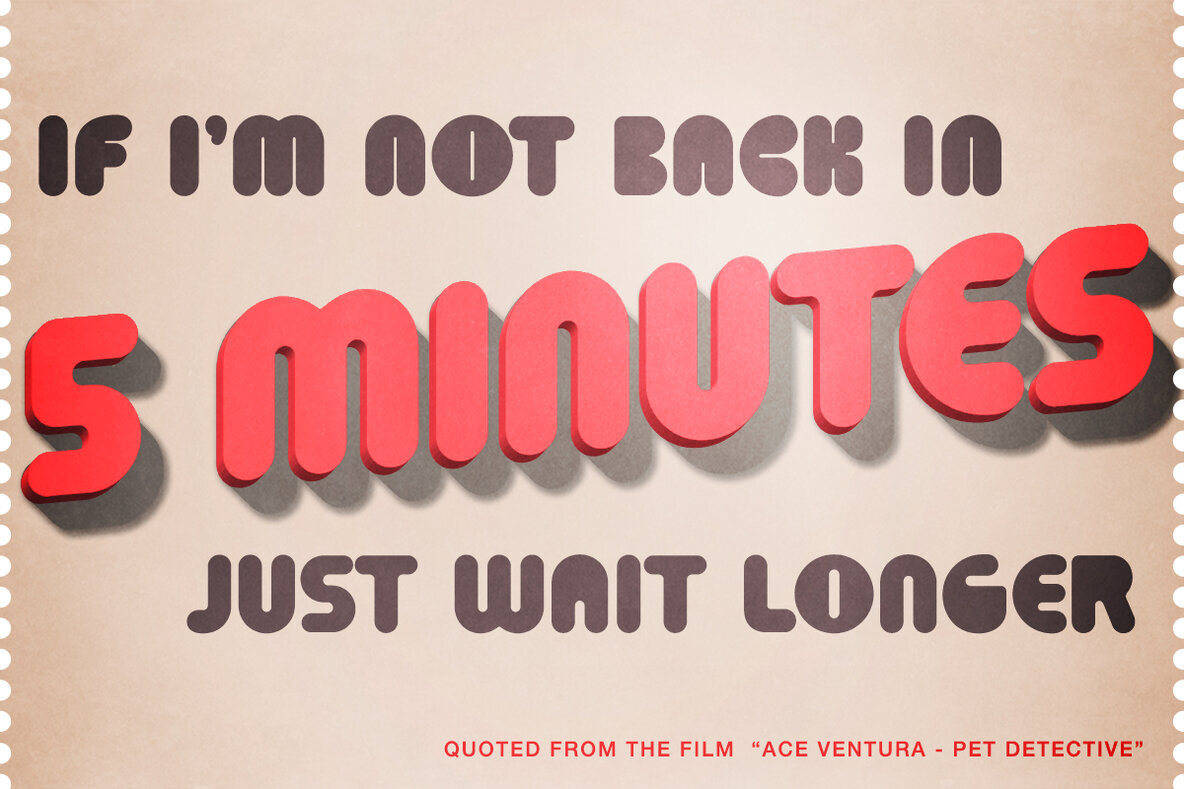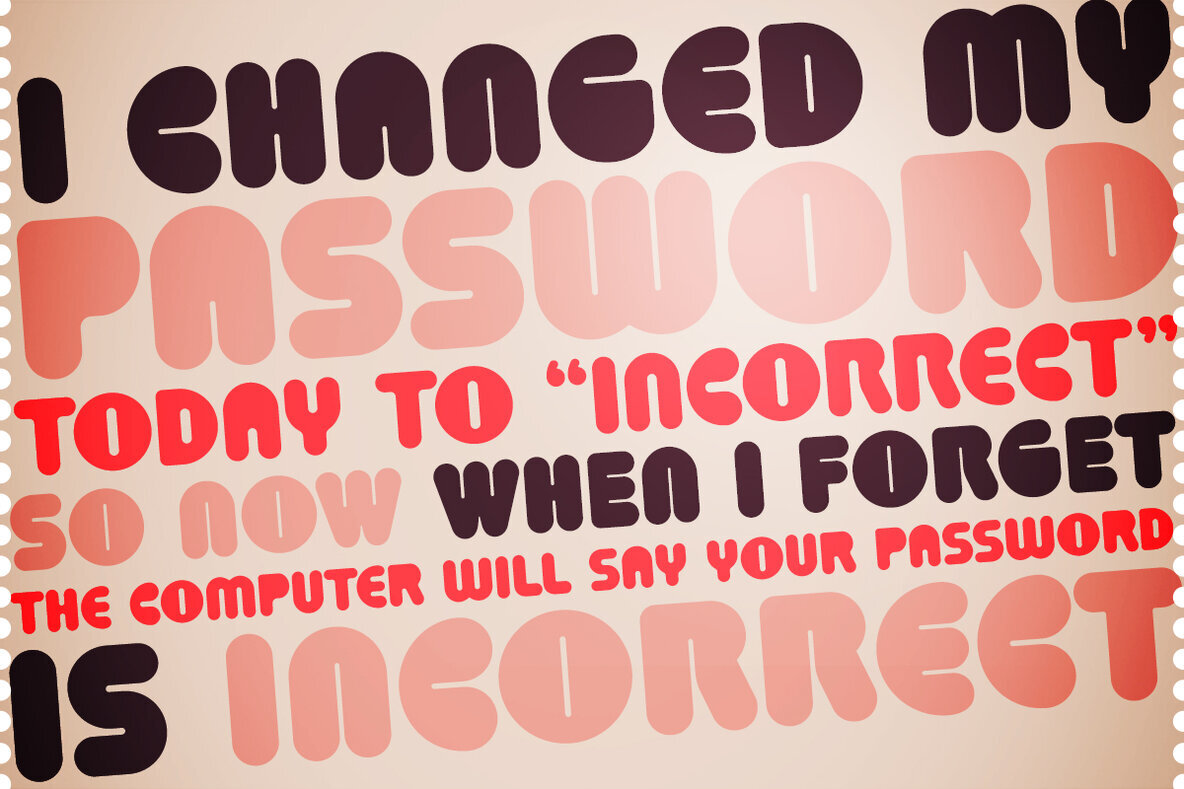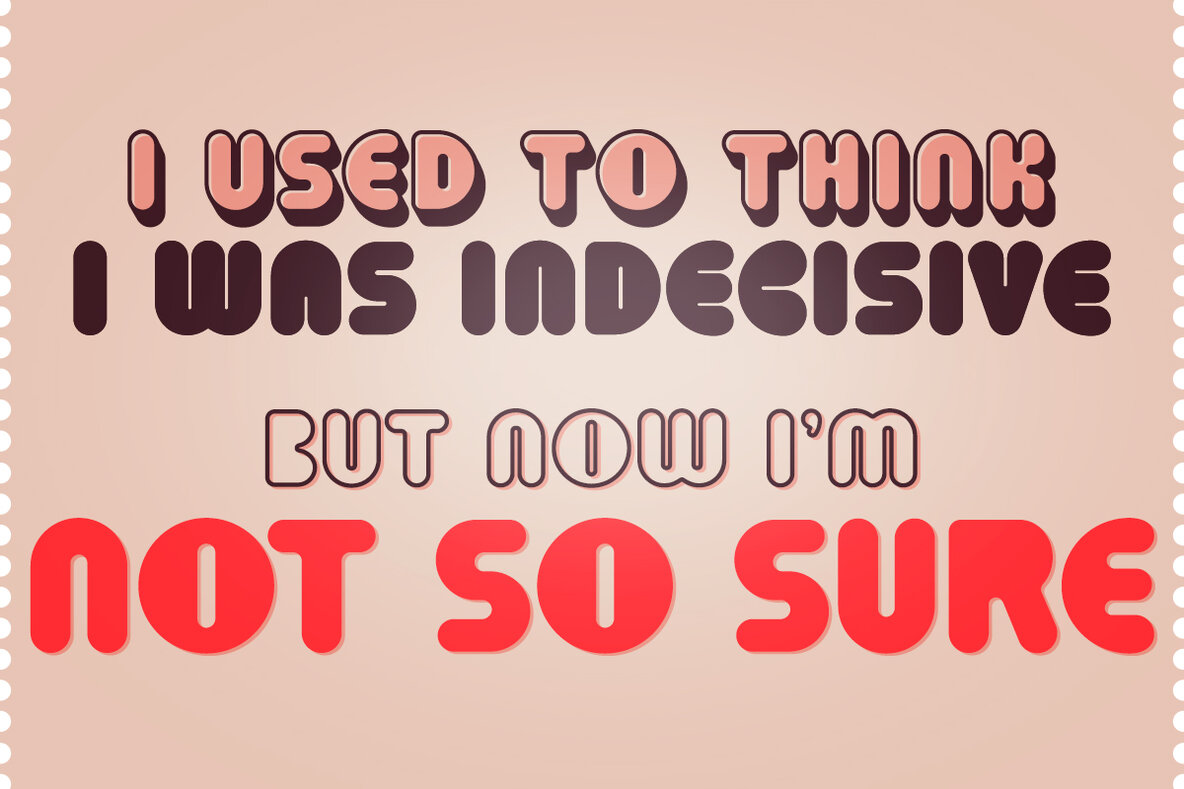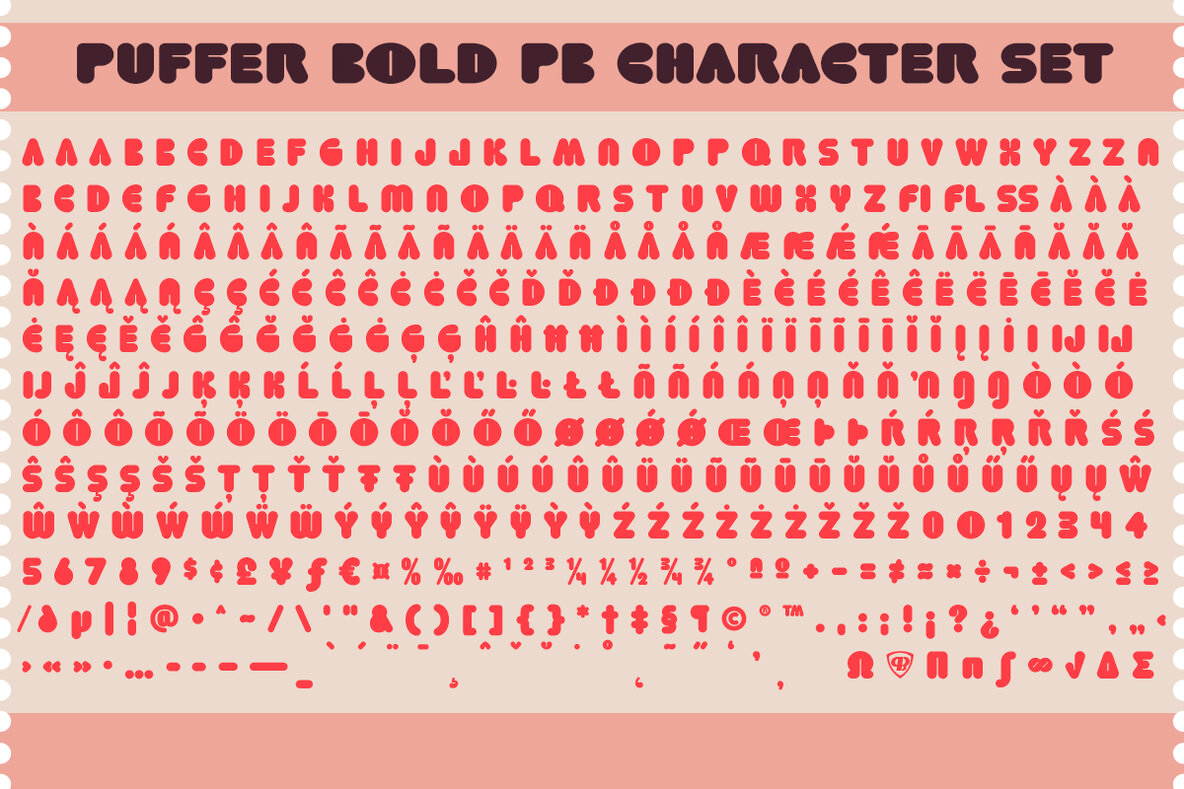
Puffer Font
Puffer PB is a distinctive typestyle that takes inspiration from the retro film typeface family Burton, originally devised by Brian Burton and extended by LetterGraphics. This quirky series includes an assortment of Light, Bold, Outline, and Shadow variants, each expertly recreated to maintain the whimsical essence of the original typographic design. While the styles suggest seamless overlay possibilities, users should note that manual adjustments might be necessary to achieve the desired playful effect.
The Puffer PB family walks the fine line between legibility and artistic flair, offering a unique blend of futuristic and retro charm. This typeface is perfect for designers looking to add an eclectic touch to their library, whether through a single style or a combination of them. The varied styles of Puffer PB provide versatile options for creative typesetting, making it an intriguing addition for any project demanding a hint of unconventional flair.